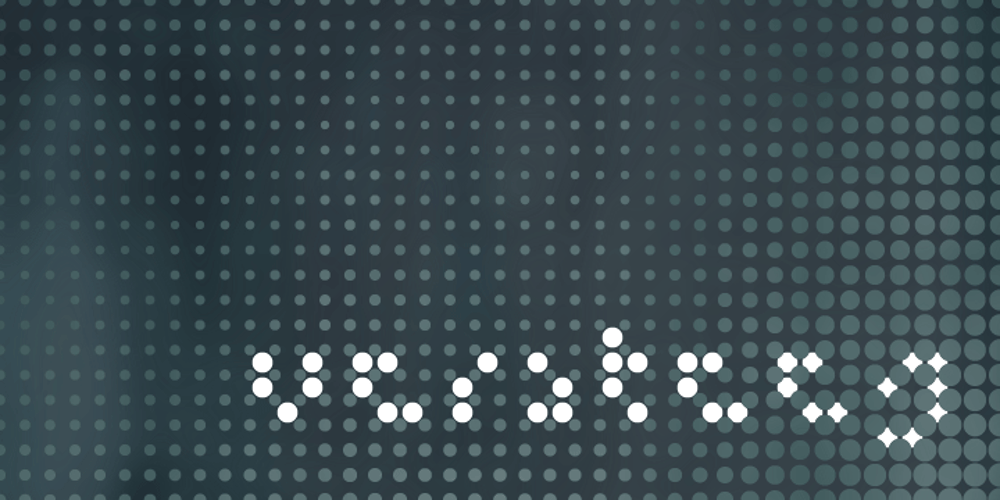
Versteeg
Versteeg font
Versteeg Font Family was designed by Thomas Johnson Quinn and published by Blank Is The New Black. Versteeg contains 4 styles and family package options. Versteeg was originally designed as a font that would work at a singular pixel level. In the spirit of this reduction, Versteeg was designed with an x-height of 3 units with capitals at 4 units. This extreme simplification is what makes Versteeg unique. After designing the square version of the typeface, creating a series of circular versions was a natural evolution. These versions have a resemblance to braille, but don’t actually have a relationship with any braille characters. The width of each face is carefully designed to make sure that the letters will align perfectly in multiple lines. Versteeg is, for the most part, a display typeface, and isn’t recommended for large blocks of text.